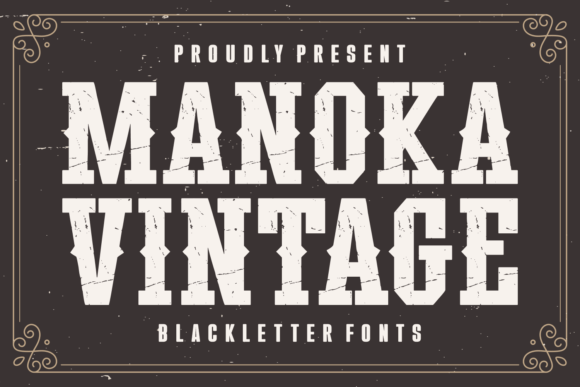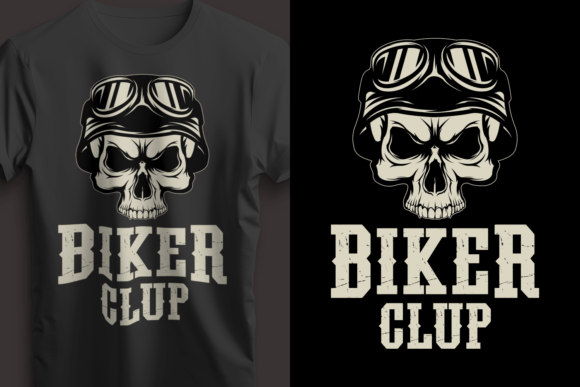
Manoka Vintage Font
Manoka Vintage is a vintage blackletter font with a distressed, weathered appearance that blends traditional Gothic typography with a rugged, aged aesthetic. With its distressed blackletter style, Manoka works well for branding that needs to convey a sense of authenticity, tradition, or craftsmanship. It’s especially effective for vintage-inspired logos, product packaging, or signage.